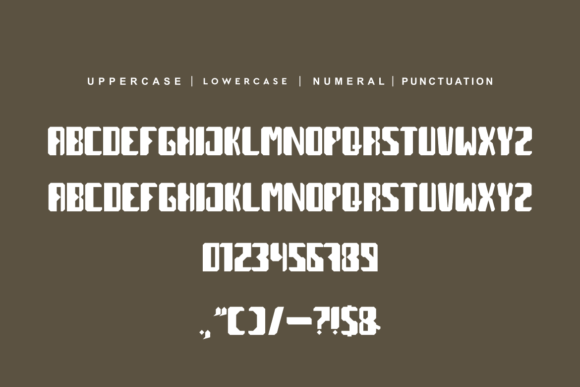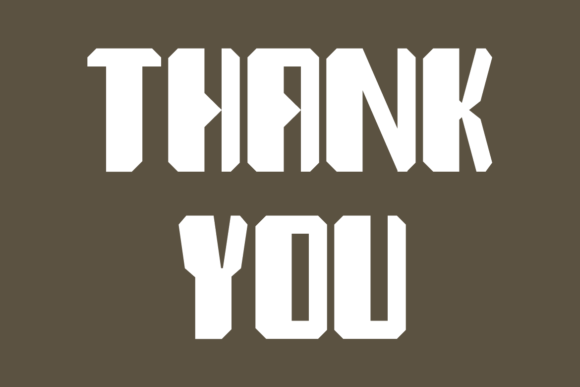
Discover the Power of Sanrio Carlo Font
You’ve spent hours brainstorming ideas, pouring over sketches, and tweaking every detail of your latest creative project. But have you ever felt like something is missing, that your design could use a bold and assertive touch to really make it pop?
That’s where the Sanrio Carlo Font comes in – a game-changing addition to any designer’s library. With its clean lines and modern aesthetic, this sans serif font is the perfect way to add some high-quality flair to your next project, whether you’re working on a logo, brochure, or website with a transparent background.
Key Features of Sanrio Carlo Font
- High-quality, professional font perfect for creative projects, such as graphic design and digital art, with a free download option.
- Sanrio Carlo Font offers a unique, high-quality design that is perfect for designers looking for a distinctive and elegant font for their creative project.
Honest Review: Sanrio Carlo Font
As a designer, I’m always on the lookout for unique and high-quality design resources to elevate my creative projects. Recently, I had the chance to experiment with the Sanrio Carlo Font, and here’s my honest review.
What works well: ✨ The Sanrio Carlo Font offers a beautiful, playful style that’s perfect for projects targeting a younger audience. It’s available for free download, making it an excellent choice for designers on a budget. The font also features a transparent background, which allows for seamless integration with other design elements.
What I’m not a fan of: ⚠️ While the font is high quality and visually appealing, it may not be suitable for all types of projects. The playful style can be too whimsical for more serious or professional designs. Additionally, the font family is relatively small, which may limit its versatility.
- Pros:
- Playful and visually appealing style
- High quality
- Perfect for creative projects targeting a younger audience
- Cons:
- May not be suitable for serious or professional designs
- Small font family
Overall, I’m impressed with the Sanrio Carlo Font’s unique style and high quality. While it may have some limitations, it’s an excellent choice for designers working on creative projects that require a playful and youthful touch.
How to Use Sanrio Carlo Font
Introduction to Sanrio Carlo Font
The Sanrio Carlo Font is a free design resource ideal for creative projects that require a high-quality, playful font. It features a transparent background, making it easy to overlay on images or other design elements.
Tips for Getting the Most Out of Sanrio Carlo Font
Here are a few tips for getting the most out of the Sanrio Carlo Font:
- Use the font in conjunction with other design elements, such as images and shapes.
- Experiment with different font sizes and colors to create visual interest.
- Use the font in creative projects, such as greeting cards, social media graphics,
Alternatives to Sanrio Carlo Font
Comic Sans MS is a popular font known for its playful and casual feel. It’s ideal for creative projects that require a friendly and approachable tone. When to use: Children’s books, social media posts, and advertisements. This font compares to Sanrio Carlo Font in its cursive and playful nature, but it lacks the elegance and sophistication.